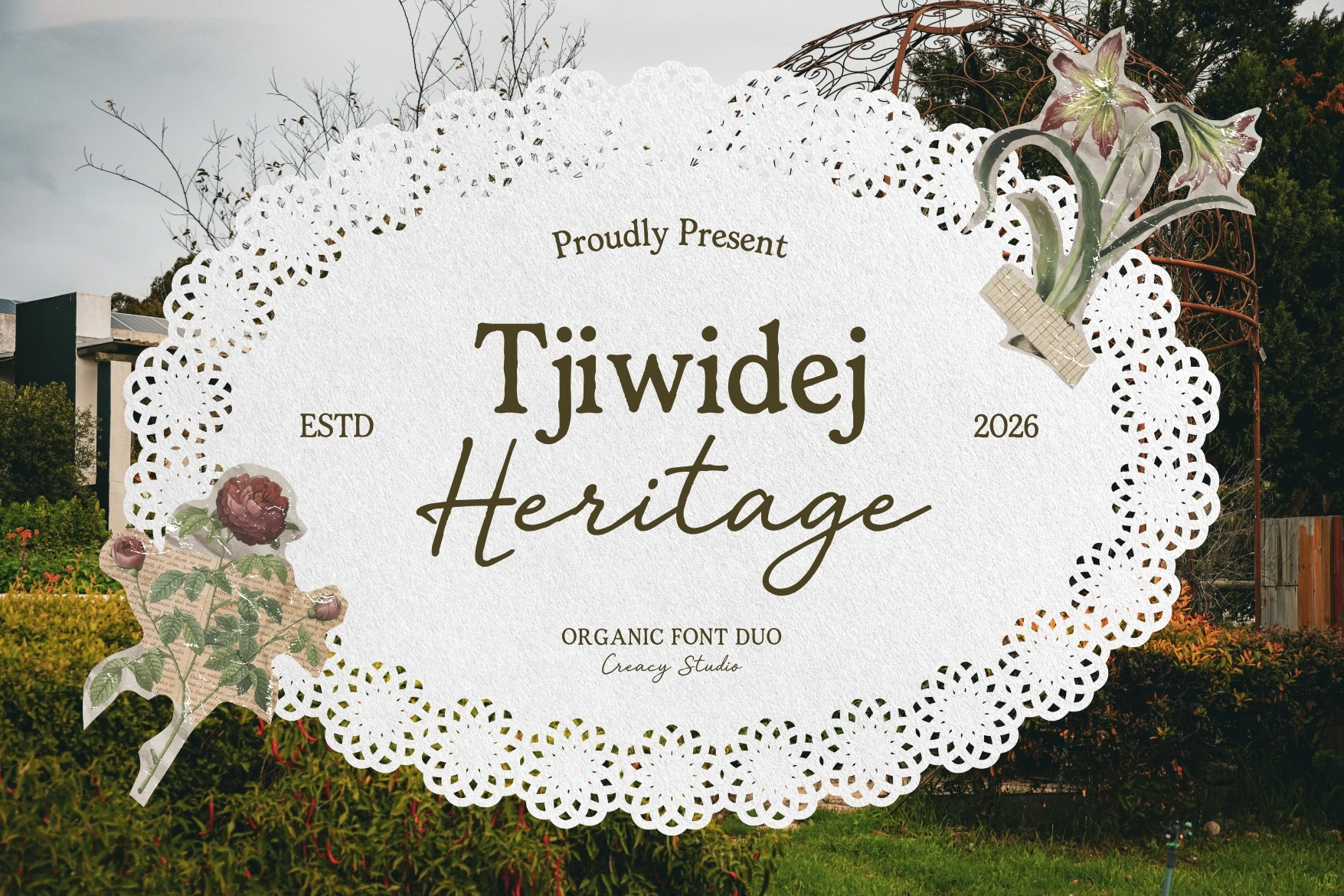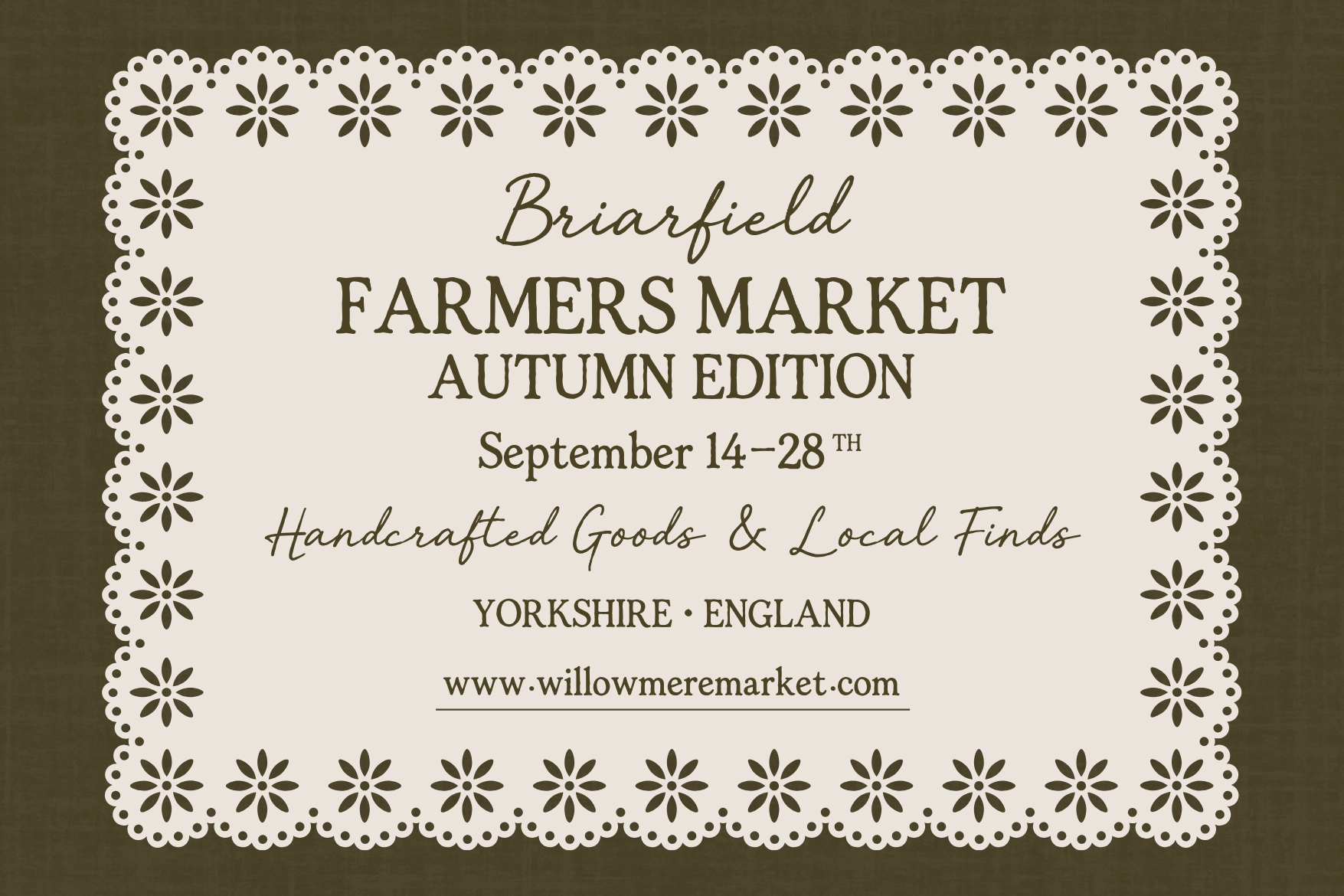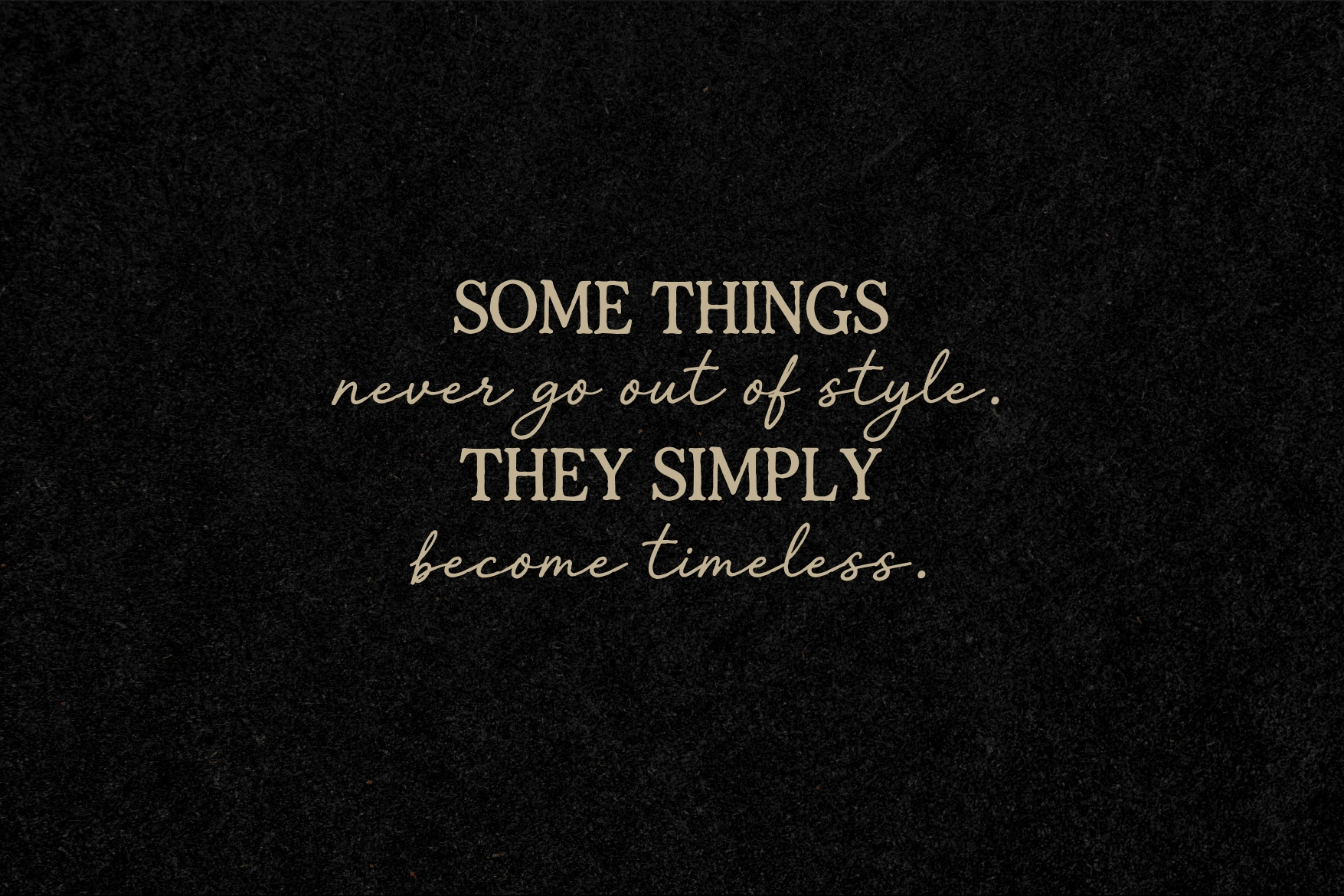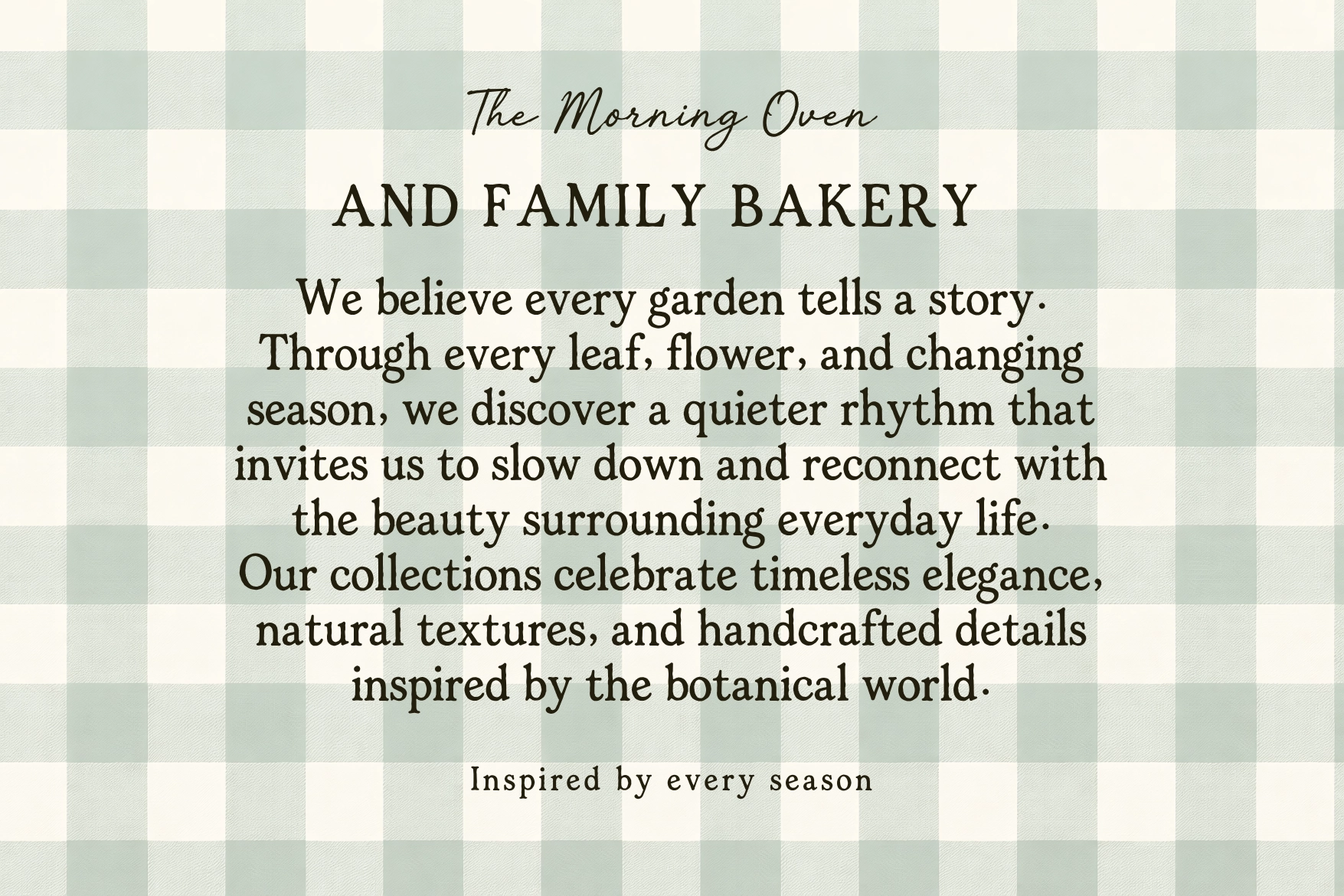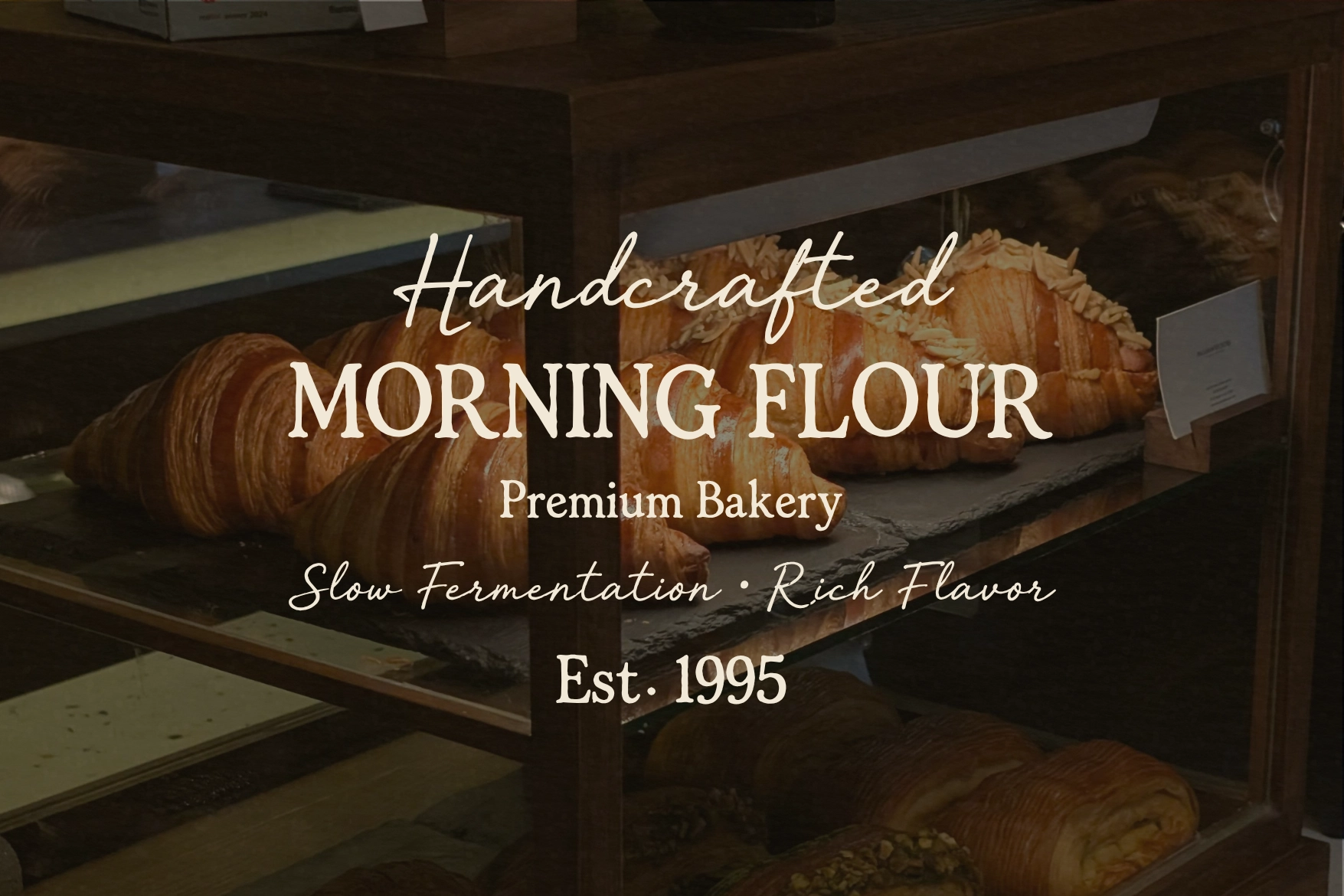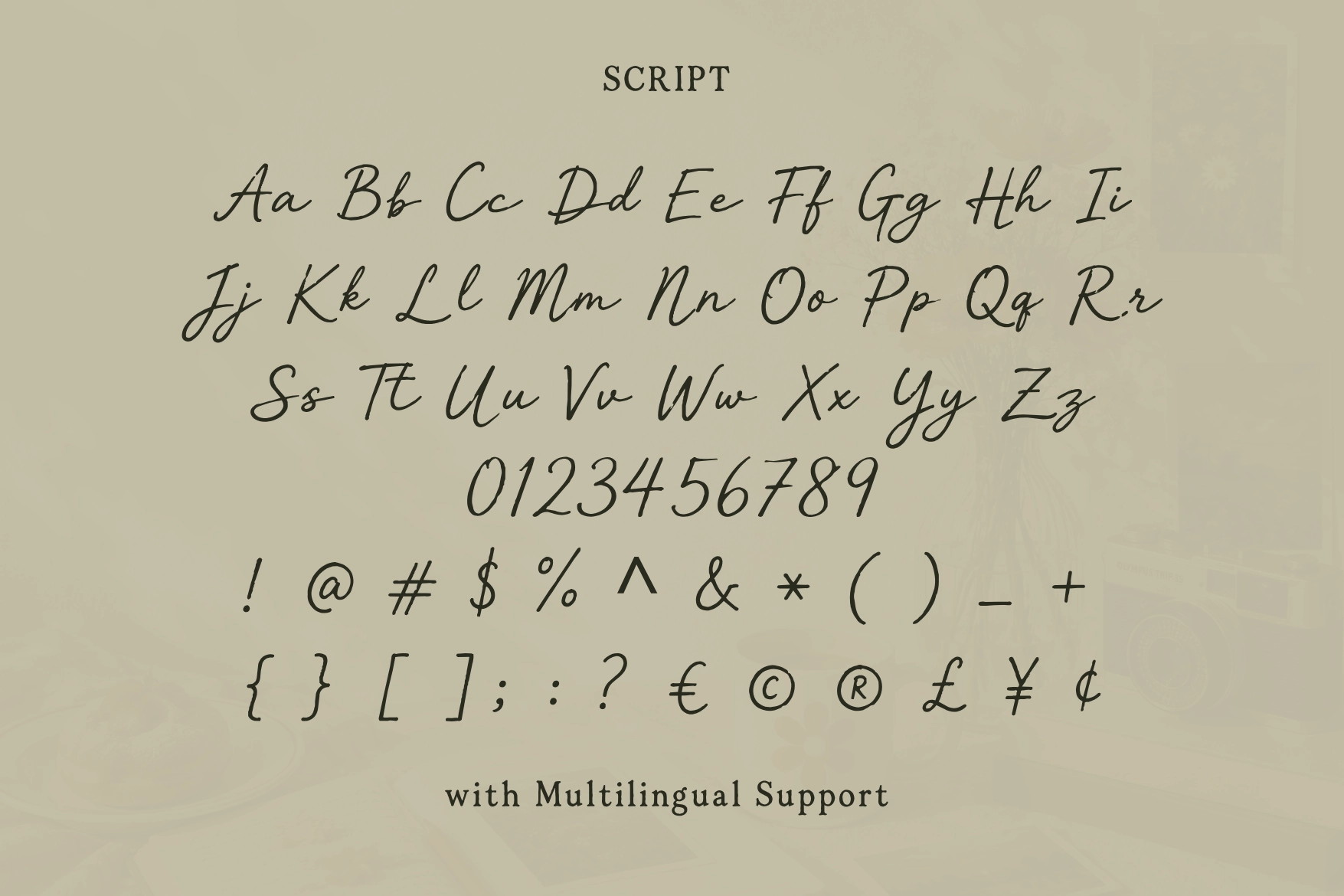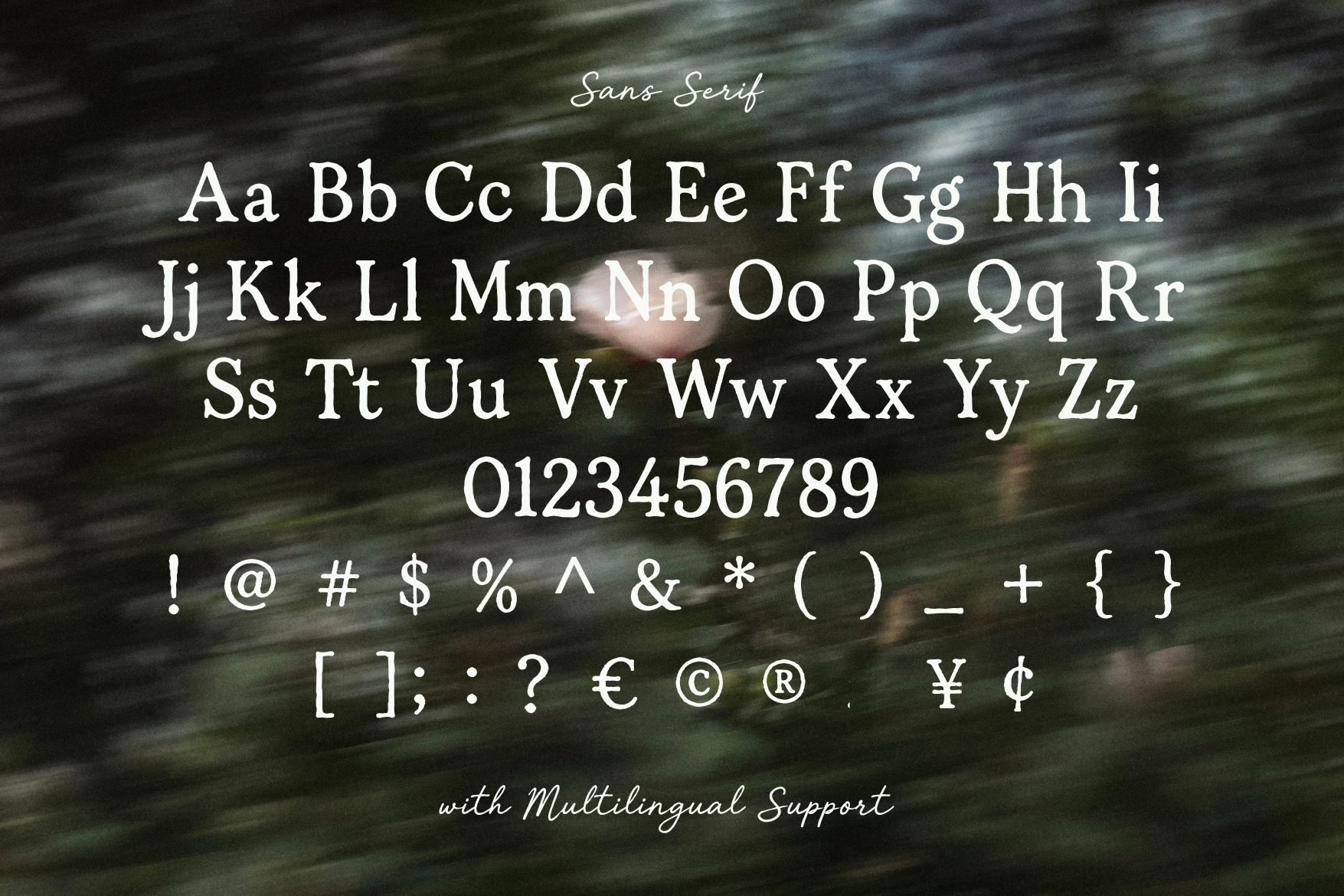
Tjiwidej Heritage – Serif & Script Font Duo
Tjiwidej Heritage pairs a vintage serif with a flowing handwritten script, pulling from lace doilies, botanical prints, and old farmers'-market signage. The serif holds a slightly heavy stroke and sturdy proportions that ground headlines, while the script leans into a loose, looping slant that softens the pairing underneath.
Tjiwidej Heritage works best when the serif carries the structure and the script adds a personal signature below it. Use it for farmers' market signage, café branding, wedding stationery, artisan labels, book covers, boutique packaging, editorial titles, and social media graphics.
- 2 styles: Serif, Script;
- Uppercase & lowercase;
- Numerals & punctuation;